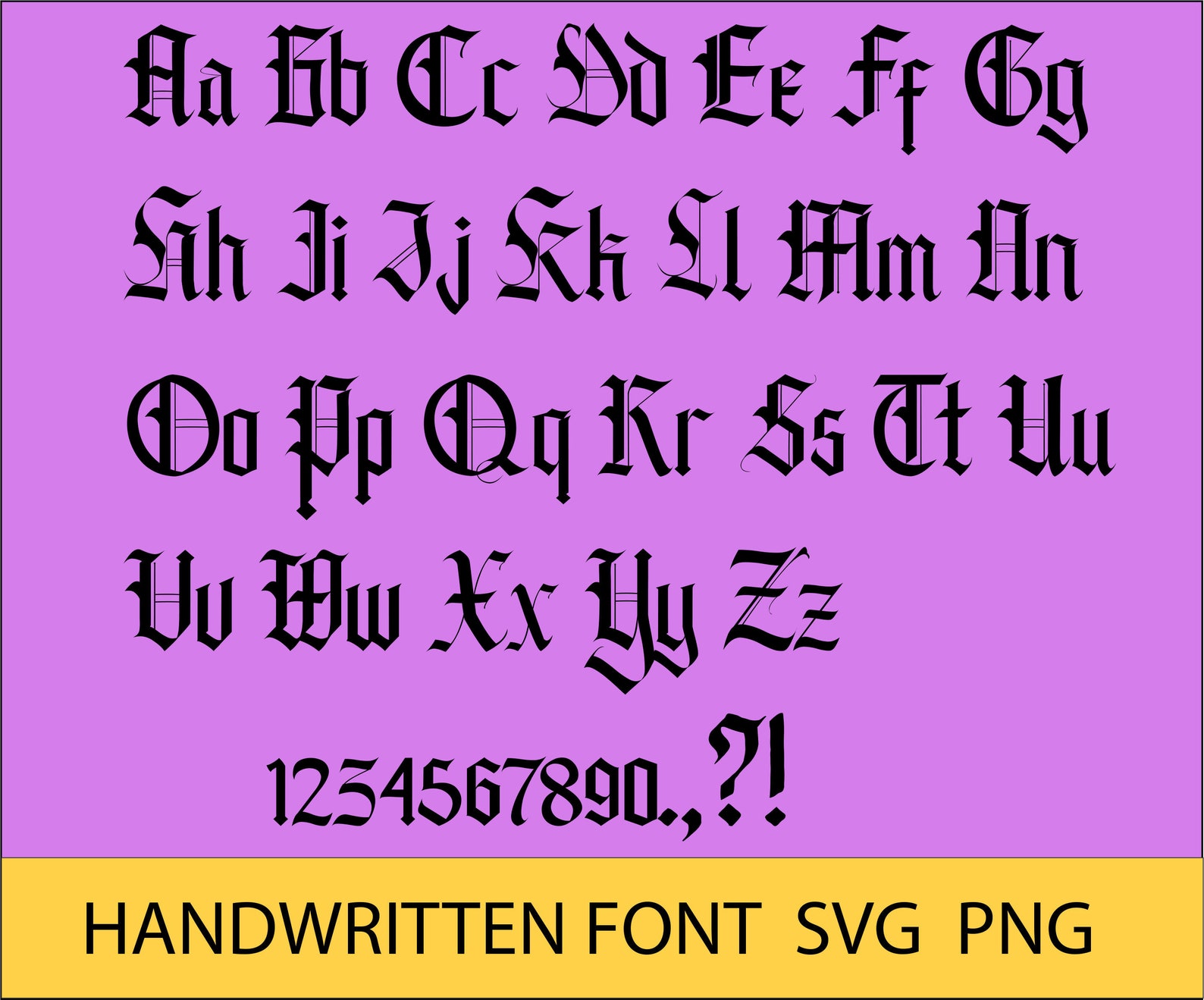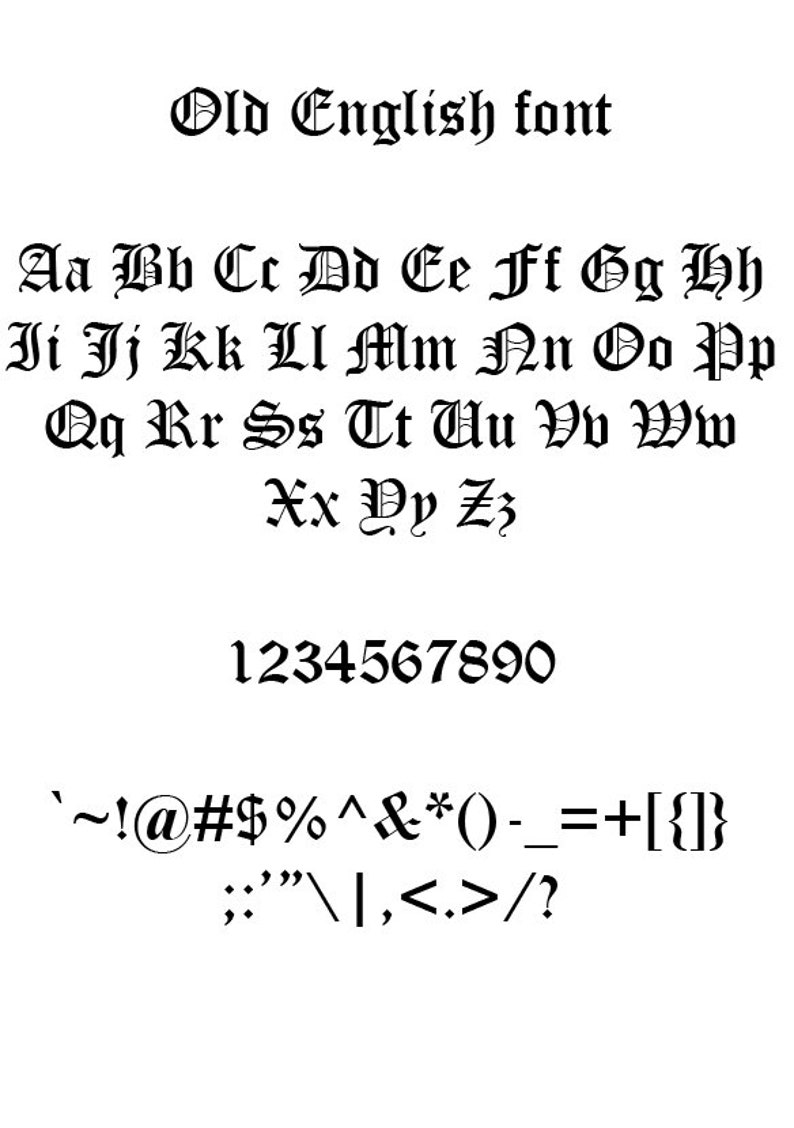
What Is Old English Font Called On Word . By utilizing serif fonts, script fonts, and decorative fonts, one can. Experience the timeless beauty of old english with our free collection of fonts. Delving into 19th century fonts in microsoft word allows users to embark on a journey through historical typography. How do i get an old english style font ? Search for a blackletter font on. They all work really well to bring about the same characteristics of how typewriters used to look. Enjoy crafting the perfect look with classic lettering. That style of lettering is called blackletter (also sometimes loosely called gothic script, or old english), and if you do a search for blackletter. Steps to get a blackletter font in microsoft word: The best typewriter fonts in microsoft word are consolas, courier, lucida console, and agency fb.
The best typewriter fonts in microsoft word are consolas, courier, lucida console, and agency fb. By utilizing serif fonts, script fonts, and decorative fonts, one can. That style of lettering is called blackletter (also sometimes loosely called gothic script, or old english), and if you do a search for blackletter. Search for a blackletter font on. Delving into 19th century fonts in microsoft word allows users to embark on a journey through historical typography. Experience the timeless beauty of old english with our free collection of fonts. Enjoy crafting the perfect look with classic lettering. How do i get an old english style font ? They all work really well to bring about the same characteristics of how typewriters used to look. Steps to get a blackletter font in microsoft word:
What Is Old English Font Called On Word Delving into 19th century fonts in microsoft word allows users to embark on a journey through historical typography. Experience the timeless beauty of old english with our free collection of fonts. How do i get an old english style font ? That style of lettering is called blackletter (also sometimes loosely called gothic script, or old english), and if you do a search for blackletter. The best typewriter fonts in microsoft word are consolas, courier, lucida console, and agency fb. Search for a blackletter font on. Enjoy crafting the perfect look with classic lettering. Steps to get a blackletter font in microsoft word: Delving into 19th century fonts in microsoft word allows users to embark on a journey through historical typography. By utilizing serif fonts, script fonts, and decorative fonts, one can. They all work really well to bring about the same characteristics of how typewriters used to look.
Old English Font Old English Letters Font Old English Script Old What Is Old English Font Called On Word Experience the timeless beauty of old english with our free collection of fonts. That style of lettering is called blackletter (also sometimes loosely called gothic script, or old english), and if you do a search for blackletter. The best typewriter fonts in microsoft word are consolas, courier, lucida console, and agency fb. Steps to get a blackletter font in microsoft. What Is Old English Font Called On Word.
Old English Fonts Alphabet What Is Old English Font Called On Word How do i get an old english style font ? Experience the timeless beauty of old english with our free collection of fonts. That style of lettering is called blackletter (also sometimes loosely called gothic script, or old english), and if you do a search for blackletter. They all work really well to bring about the same characteristics of how. What Is Old English Font Called On Word.
Old English Font Svg English Font Old Svg Cricut Fonts Svg Etsy Images What Is Old English Font Called On Word The best typewriter fonts in microsoft word are consolas, courier, lucida console, and agency fb. Delving into 19th century fonts in microsoft word allows users to embark on a journey through historical typography. Search for a blackletter font on. They all work really well to bring about the same characteristics of how typewriters used to look. That style of lettering. What Is Old English Font Called On Word.